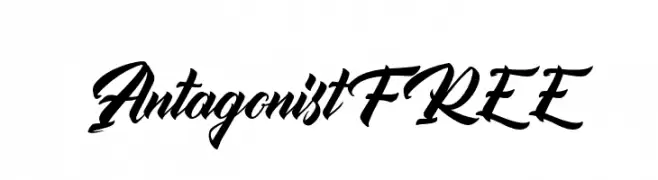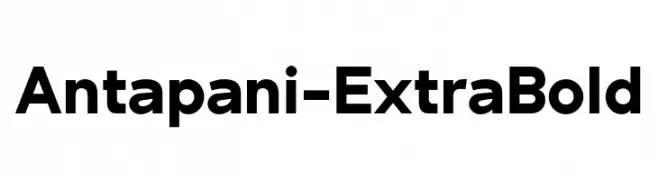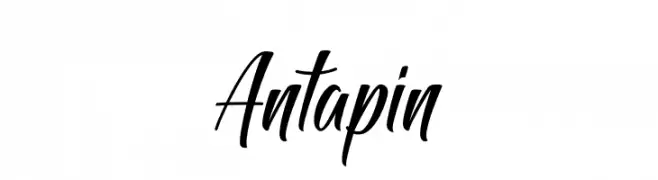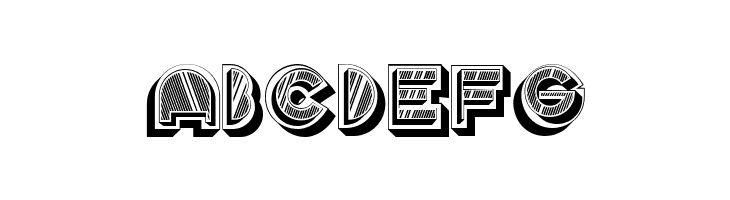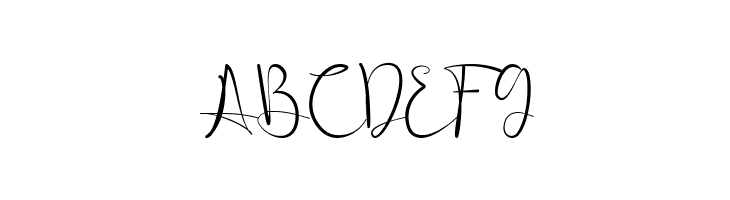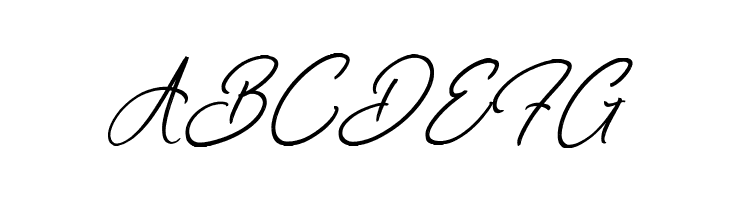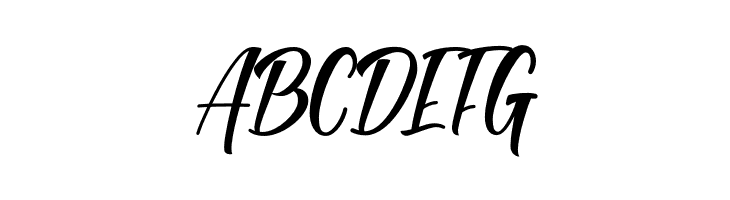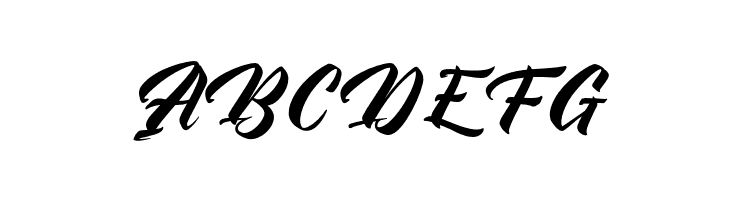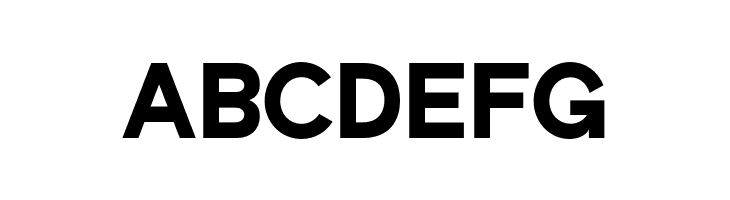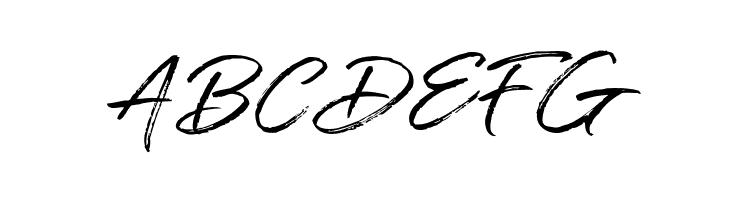
A bold, dynamic script font with flowing, cursive letterforms and dramatic flourishes.
A dynamic, expressive handwritten font with a brush-like style.
A dynamic and expressive handwritten font with fluid, cursive strokes.
A bold, modern typeface with thick strokes and clean lines, perfect for headlines.
A dynamic and expressive script font with fluid, energetic strokes.
A dynamic script font with bold, sweeping strokes and a hand-drawn appearance.
A bold, decorative font with a 3D effect and intricate line patterns.
A graceful script font with fluid, cursive strokes and elegant curves.
A bold, rounded font with a playful and modern style.
A playful, cursive font with a whimsical, handwritten style.